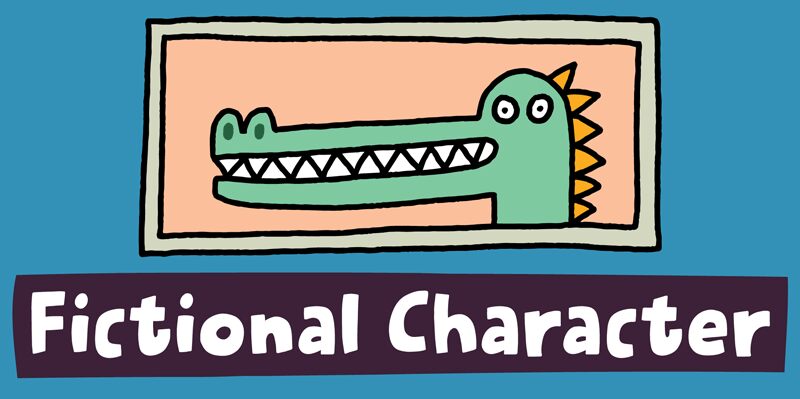
Fictional Character, designed by Pizzadude, is a captivating display font known for its bold and playful cartoon style. Its chunky letters and whimsical curves inject energy and creativity into any text, making it perfect for projects that seek to grab attention with a fun, lighthearted touch.
Ideal for children's books, vibrant posters, eye-catching branding, or lively social media graphics, Fictional Character’s unique charm ensures it stands out in both digital and print formats. This font brings a sense of joy and dynamism to your designs, making every word burst with personality. Embrace the creative flair of Fictional Character to transform ordinary text into extraordinary visual experiences.